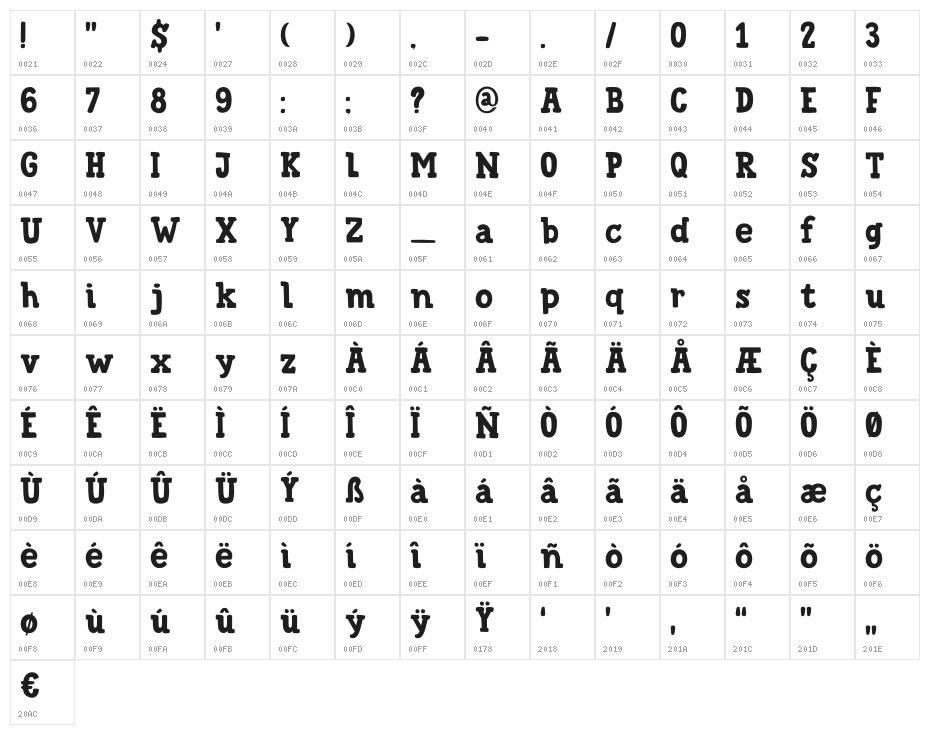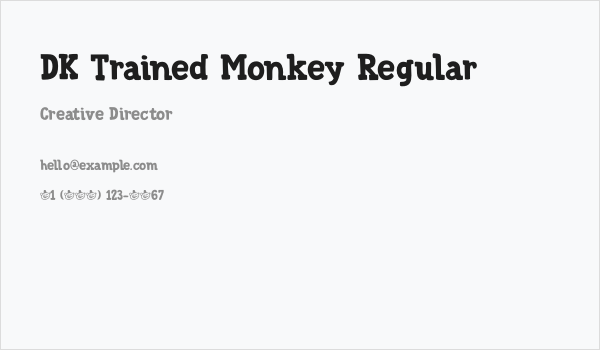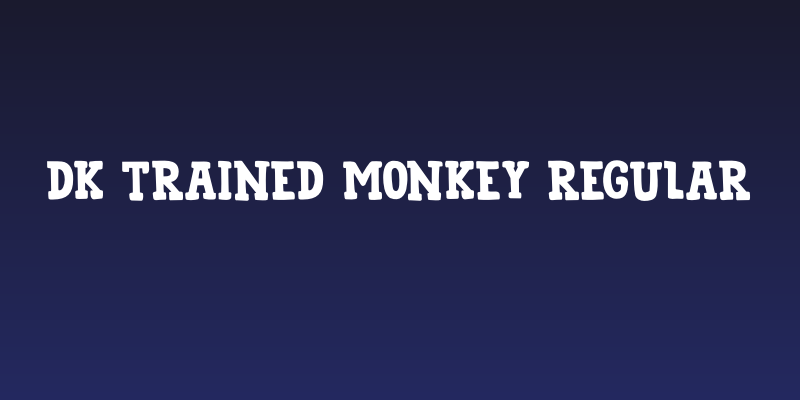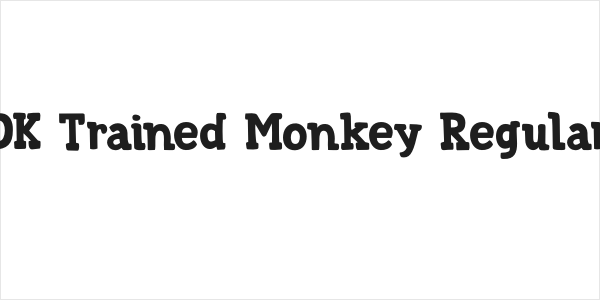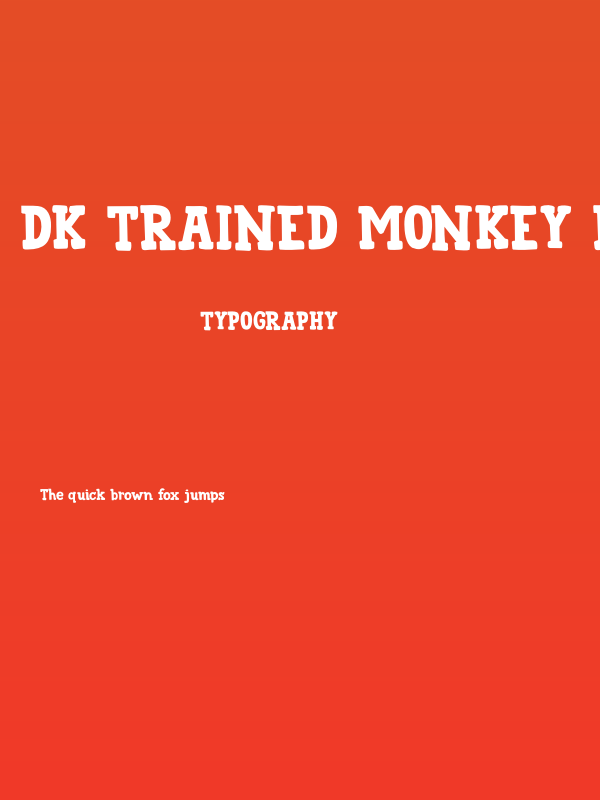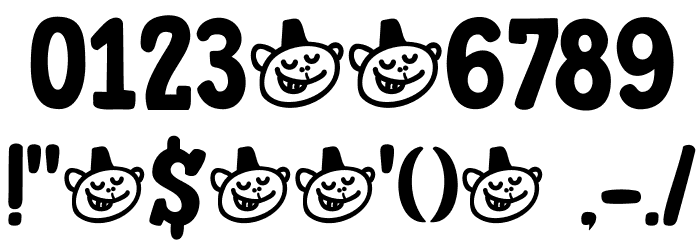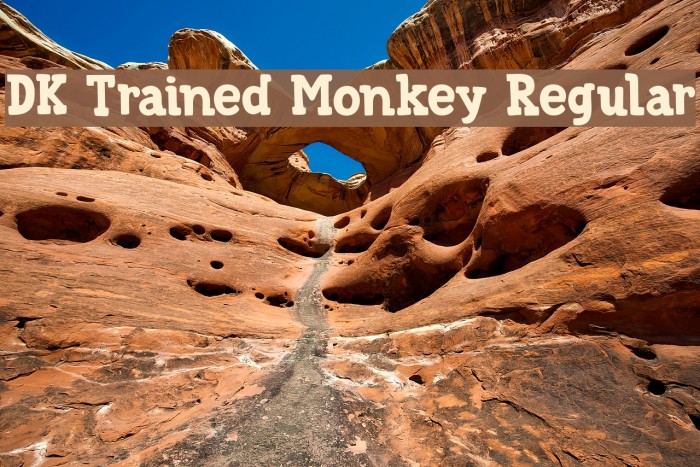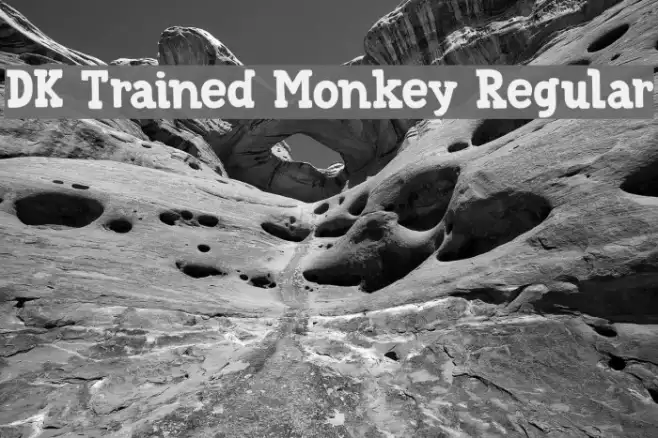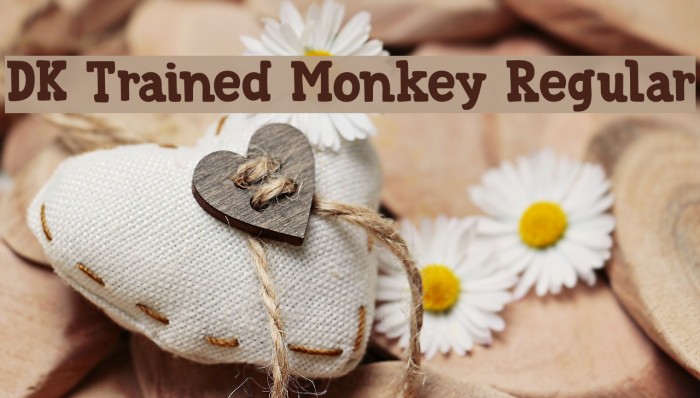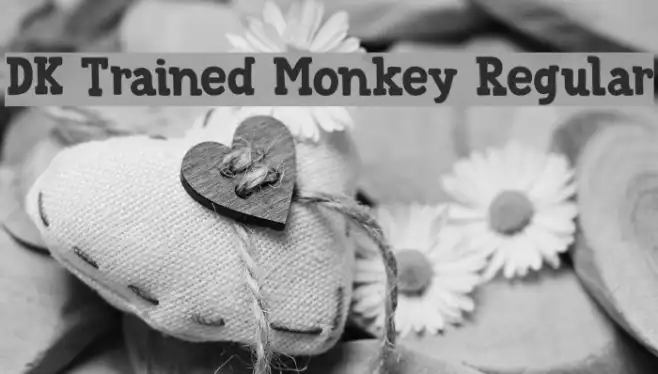
DK Trained Monkey Regular Font
DK Trained Monkey Regular Description
This playful and bold font features a whimsical design with rounded edges and a slightly irregular shape, giving it a hand-drawn appearance. The uppercase and lowercase letters maintain a consistent style, with a notable thickness that adds to its boldness. The numbers and special characters are equally playful, with some characters incorporating a monkey face motif, enhancing its fun and quirky personality. This font is perfect for projects that require a lighthearted and engaging touch, such as children's books, playful branding, or creative posters.
| Proposed Projects | Ideal for children's books, playful branding, creative posters, and fun invitations. |